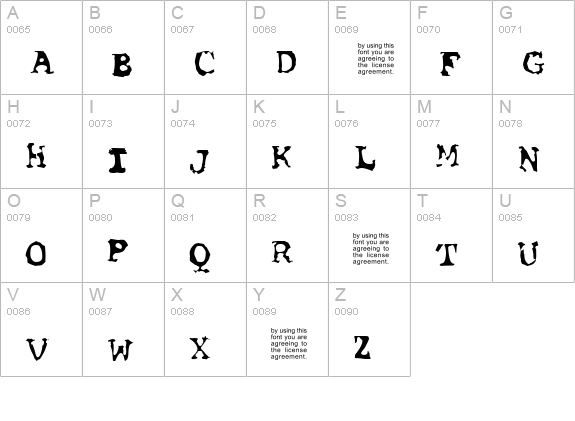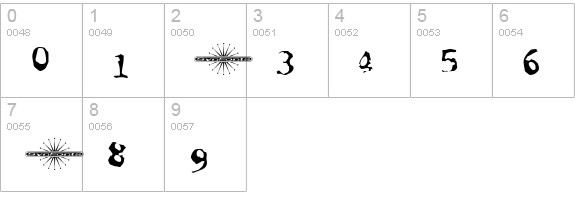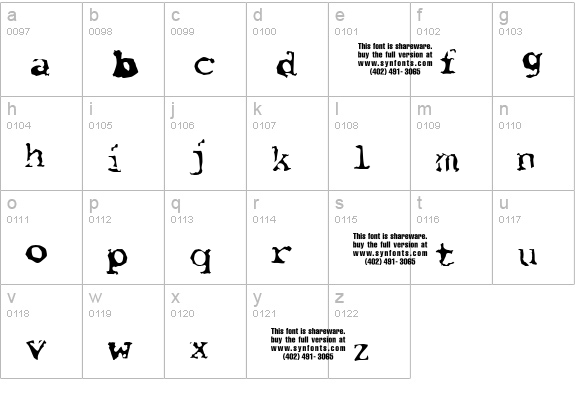
The Font Pirate UNPAID DEMO font is a playful and unique typeface that brings a touch of whimsy to your designs. With its bold and quirky characters, this font is perfect for adding a fun and adventurous feel to your projects. Whether you're designing a poster, logo, or invitation, Font Pirate UNPAID DEMO will make your text stand out. Best of all, this font is available for free! You can easily download the Font Pirate UNPAID DEMO font at FontsMarket.com and start using it in your creative projects right away. Don't miss out on this opportunity to add a dose of creativity to your work with the Font Pirate UNPAID DEMO font.